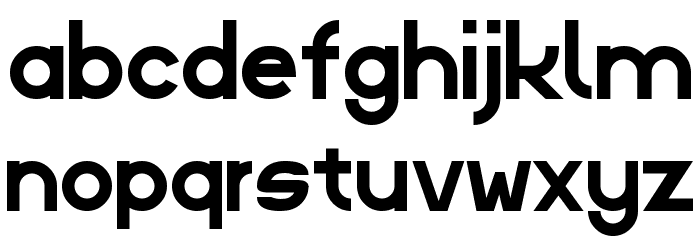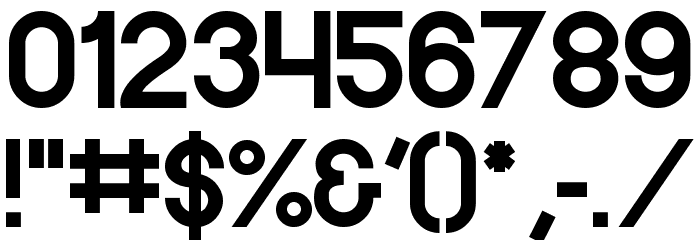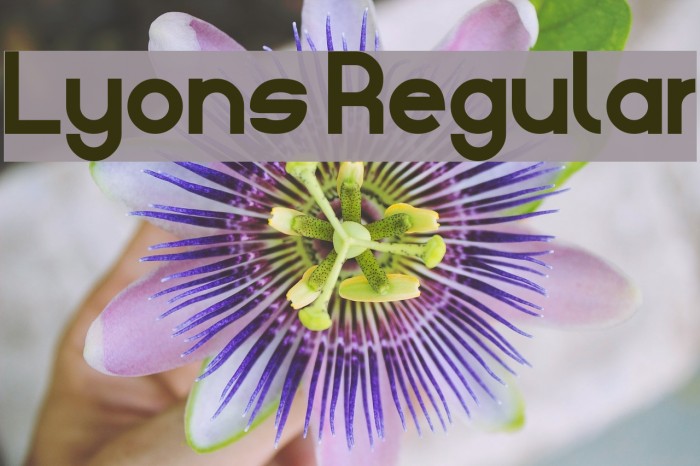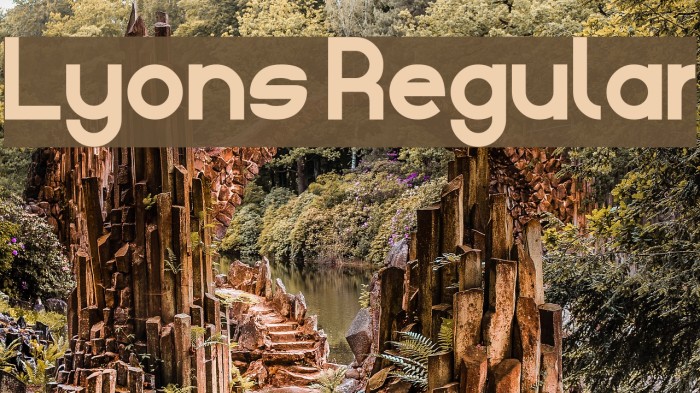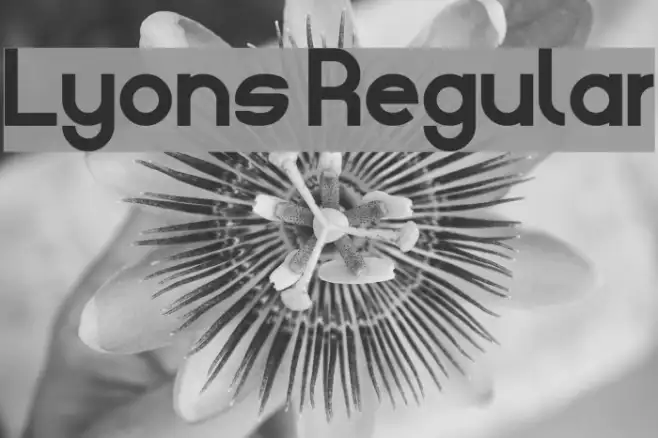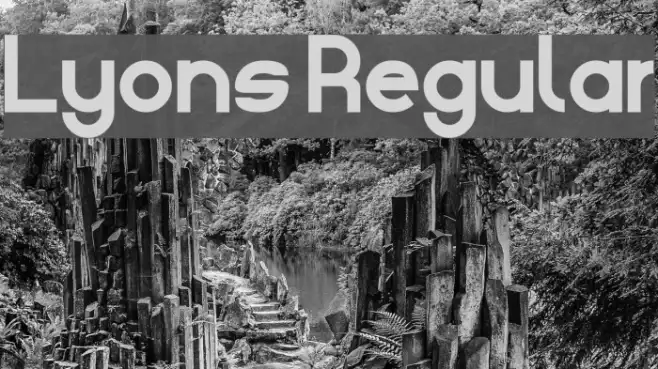
Lyons Regular Font
This typeface exhibits a clean and modern sans-serif design, characterized by its geometric shapes and uniform stroke widths. The uppercase letters are bold and assertive, while the lowercase letters maintain a consistent and harmonious appearance. The numerals are clear and easily distinguishable, making them suitable for various applications. Special characters are well-integrated, ensuring versatility in design projects. The overall aesthetic is contemporary and functional, making it an excellent choice for digital and print media.
A modern, geometric sans-serif font with uniform stroke widths.